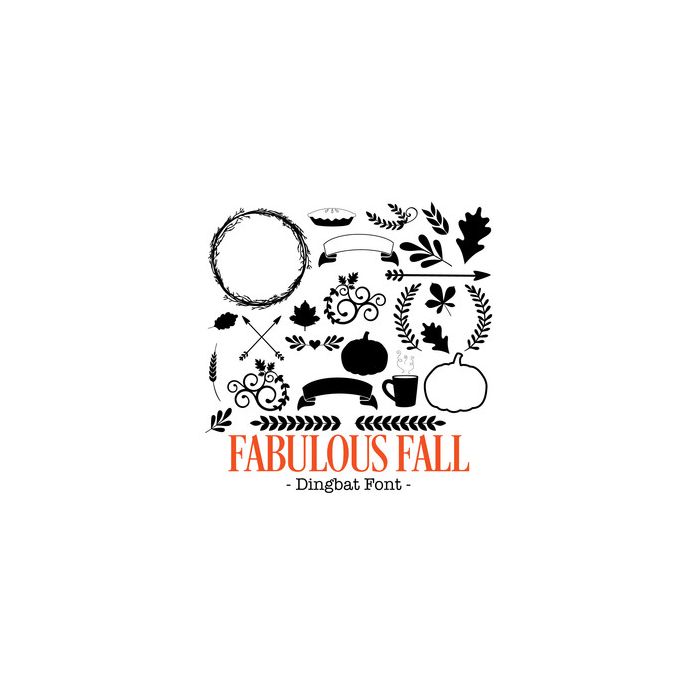
Fabulous Fall Dingbat Font. Contains 26 Dingbat pictures, perfect for Thanksgiving projects, travel journals, scrapbooking, card making and more! All are allocated to upper and lower case and can be accessed via glyphs. My other fonts can be found in the Silhouette store. For more design ideas, coordinating designs & products and inspiration, please visit my blog http://www.sarahhurleyblog.com